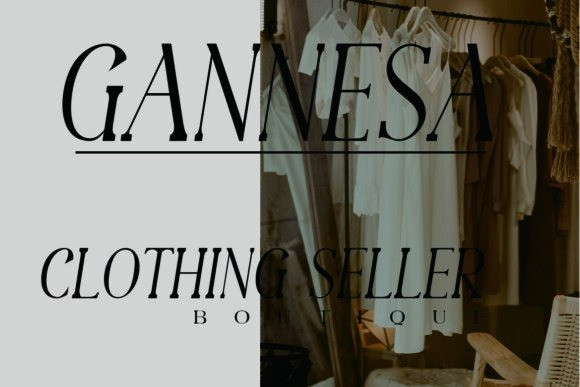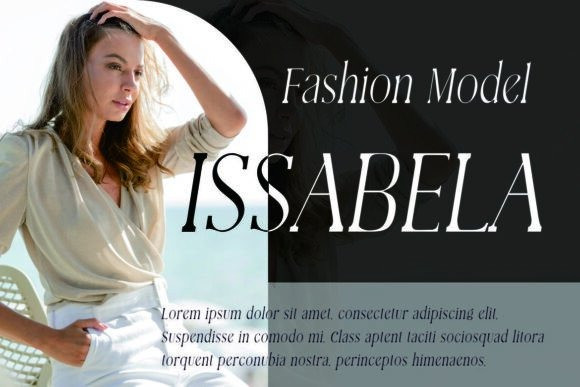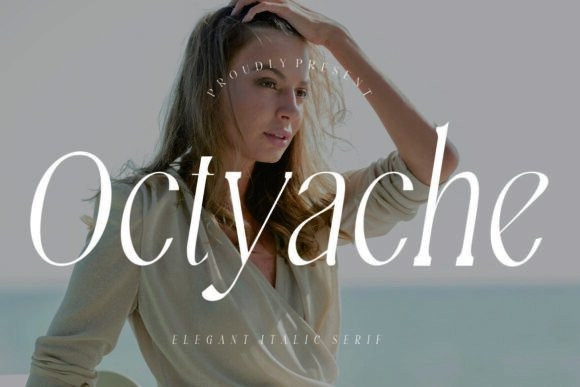
Octyache Font
Octyache Font is a graceful italic serif typeface with a modern luxury twist. With delicate curves and stylish slants, it’s perfect for high-end branding, feminine fashion labels, and elegant magazine layouts. This font radiates sophistication and artistic flair.